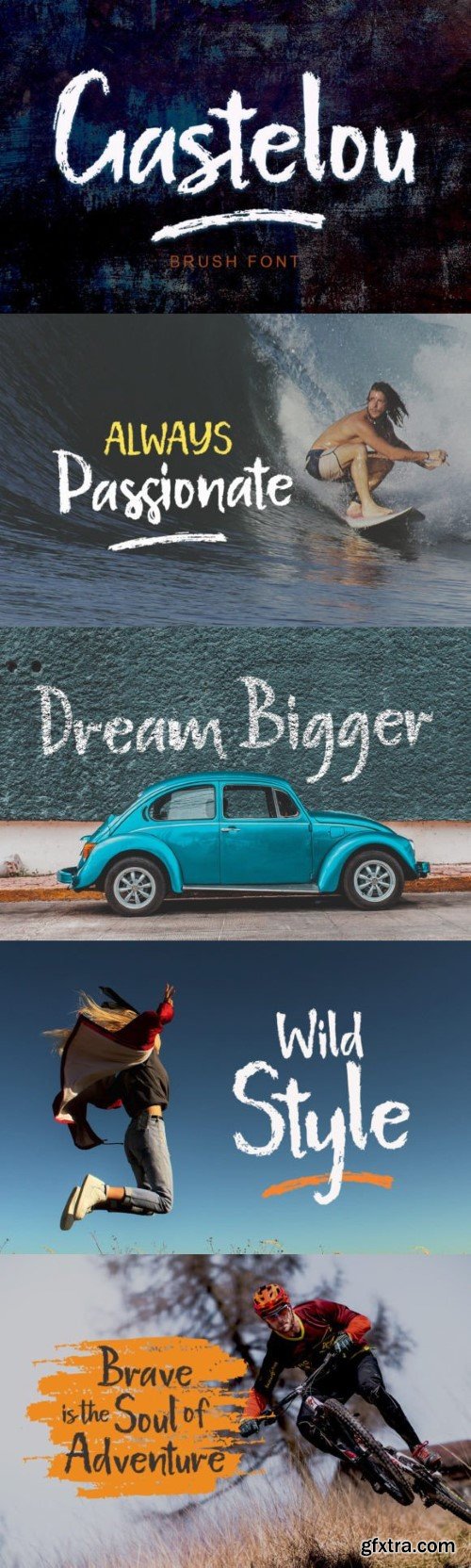
加斯特洛字体
Gastelou font is a charming and handcrafted brush typeface that exudes casual elegance. Its flowing strokes and organic texture bring a touch of warmth and authenticity to your designs. Whether used for invitations, branding, or creative projects, Gastelou adds a personal and artistic flair that captures attention and creates a lasting impression.”